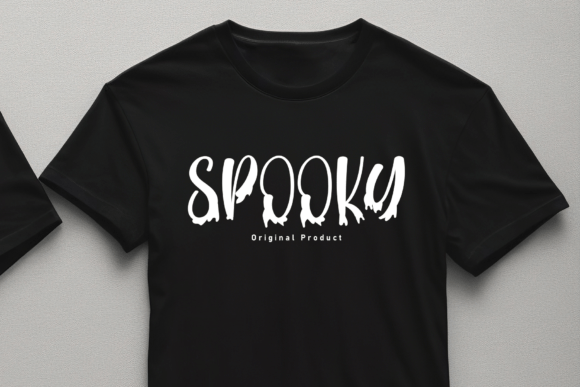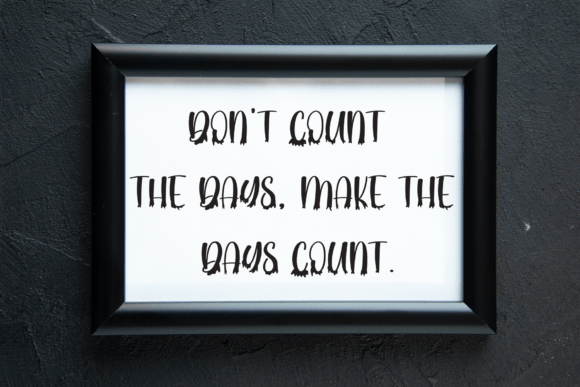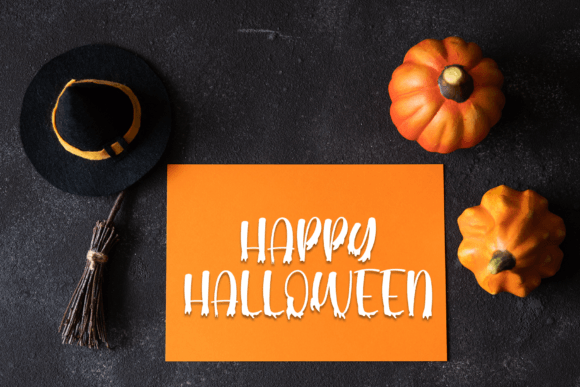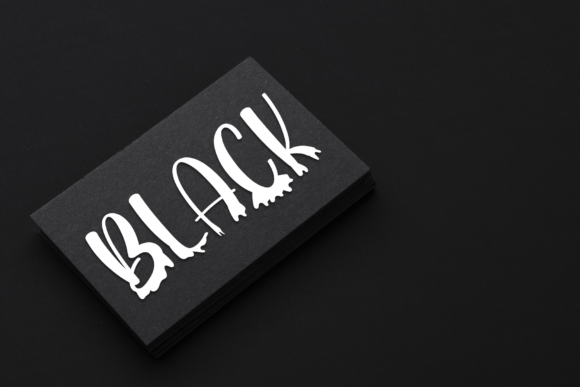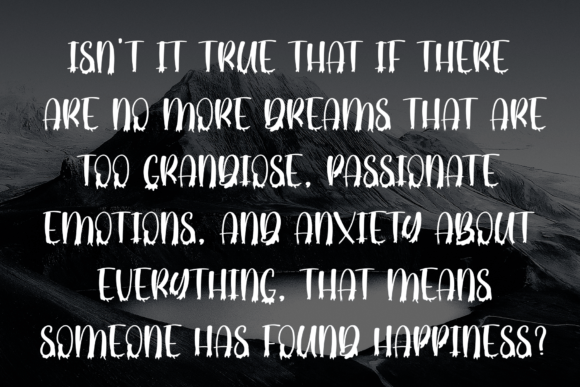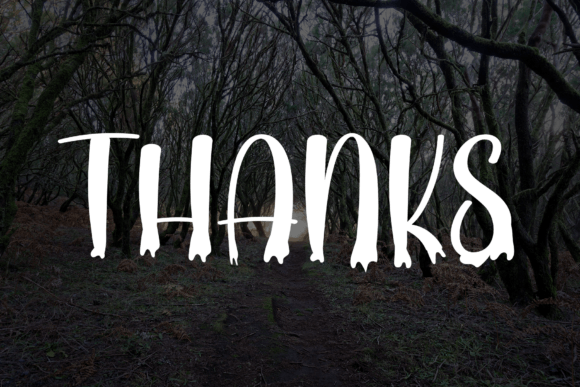
Introduction to Scary Garden Font Font
Fonts play a crucial role in design, and the Scary Garden Font font is a typeface that brings both character and versatility to any project. Whether you’re working on a branding project, a website, or a print design, the Scary Garden Font font offers a unique style that can elevate your work.
Embrace charm and whimsy with our playful handwritten display font, rich in sweetness and friendliness.
Adorned with cute and fun attributes, it serves as the perfect choice to infuse charm into wedding invitations or cards Whether youβre crafting a heartfelt message, or designing a captivating motif, this font will surely add that delightful touch to your creations.
Key Features of Scary Garden Font Font
Why Choose Scary Garden Font Font?
The Scary Garden Font font is more than just a typeface β it’s a design tool that helps you communicate your message with style and clarity. Its unique character set and versatile design make it suitable for a wide range of applications, from elegant invitations to bold headlines.
With its carefully crafted letterforms and balanced proportions, the Scary Garden Font font ensures readability and visual appeal across all mediums.
What makes Scary Garden Font font special?
The Scary Garden Font font stands out with its unique design, exceptional readability, and versatility across various design applications.